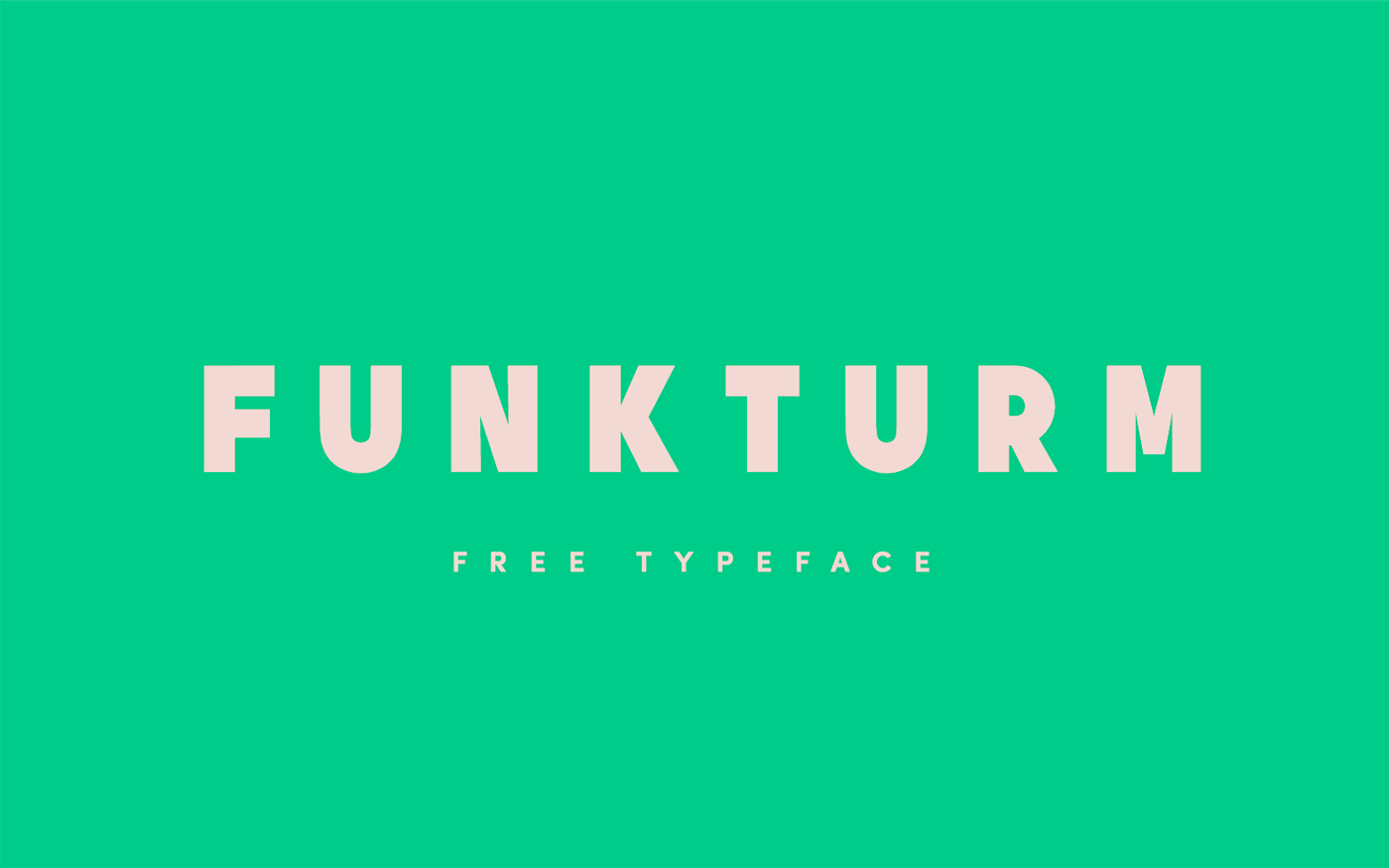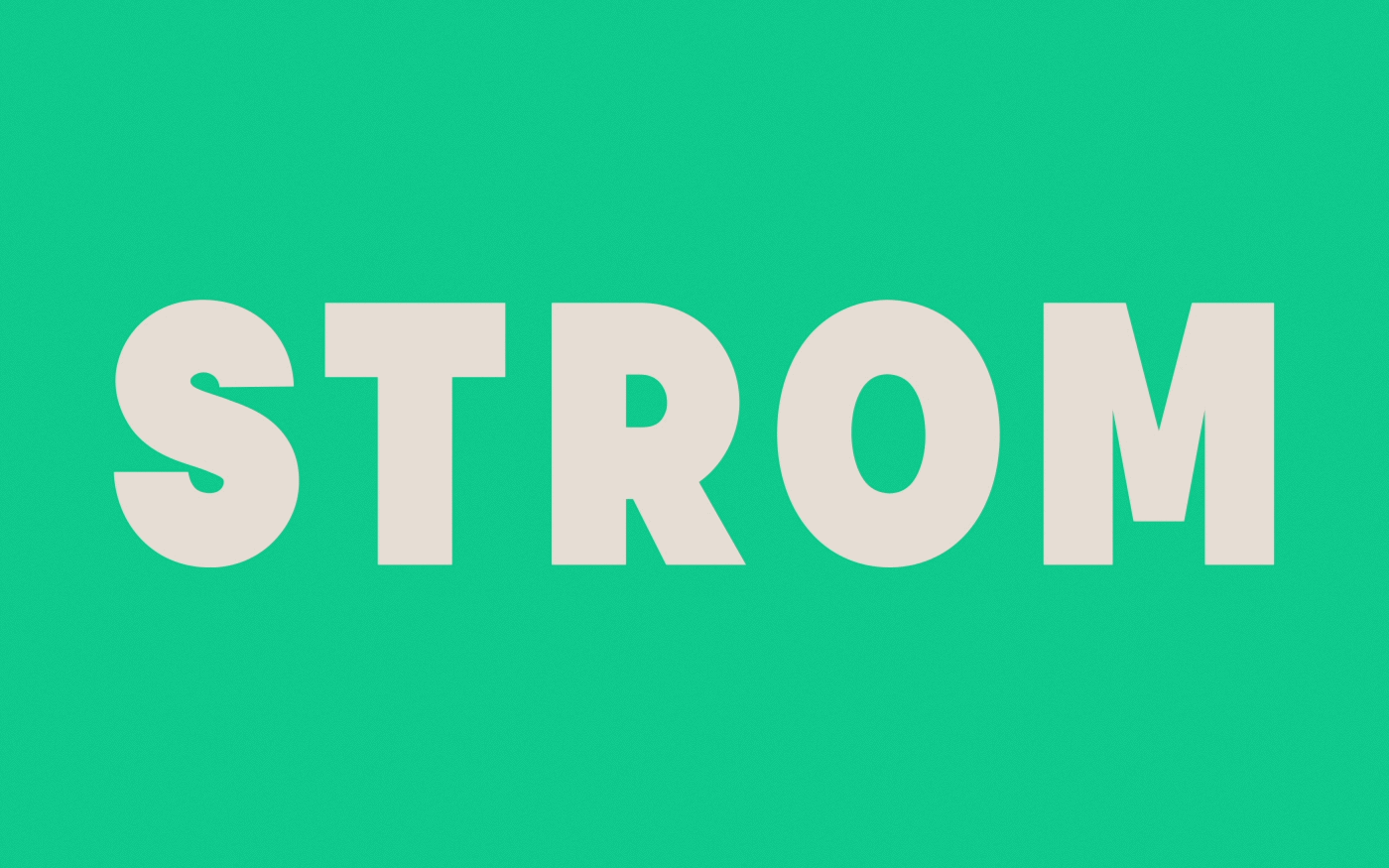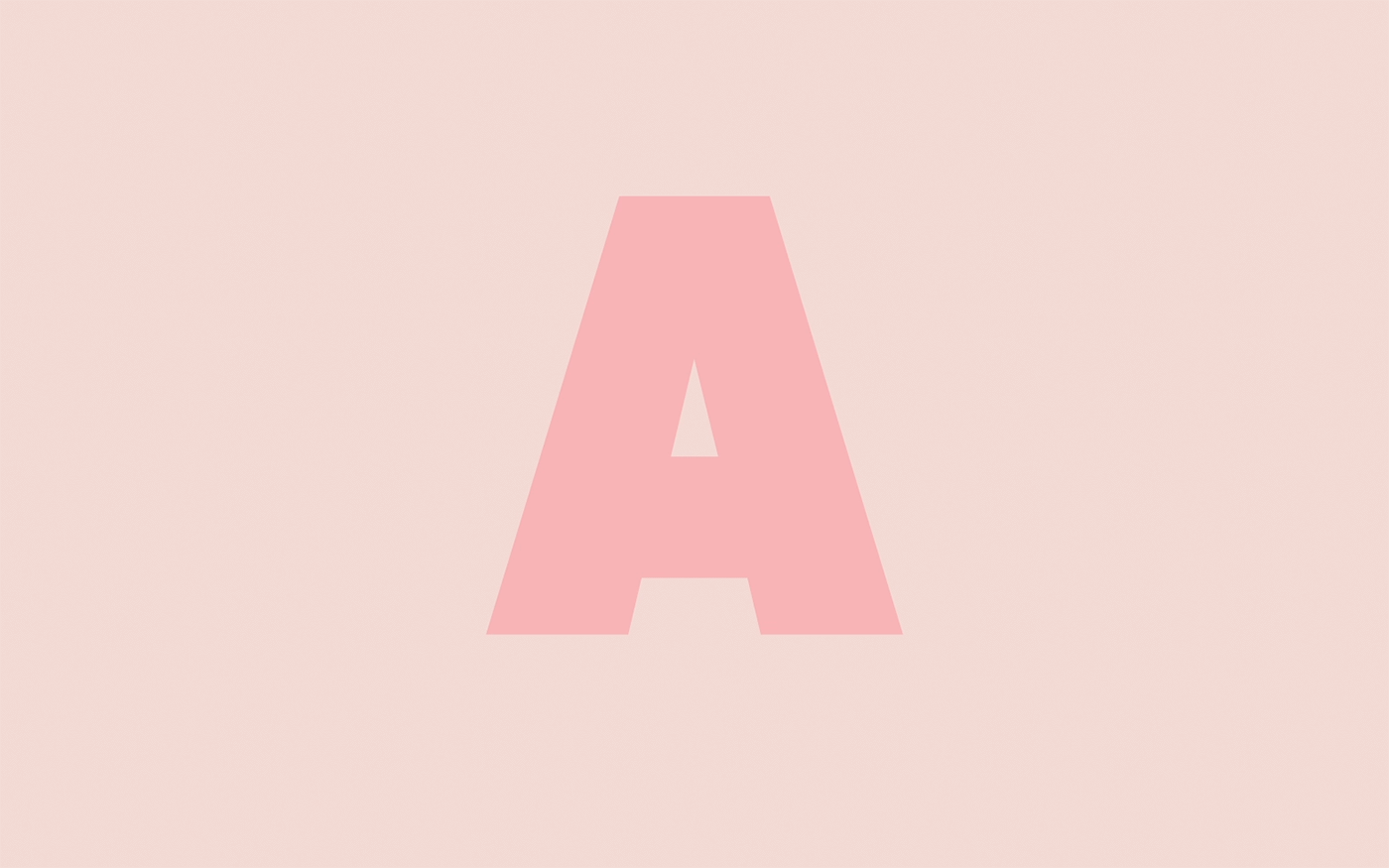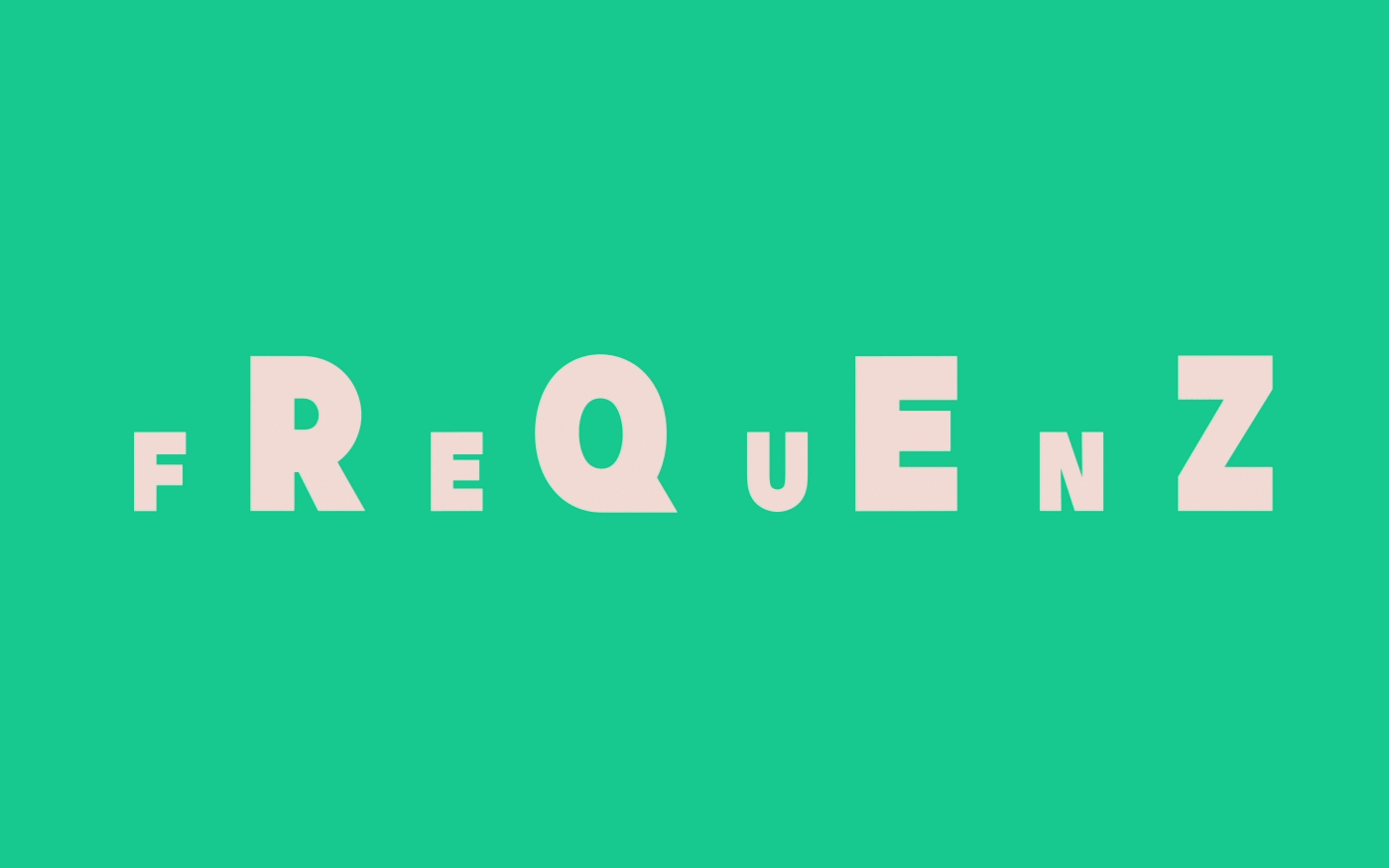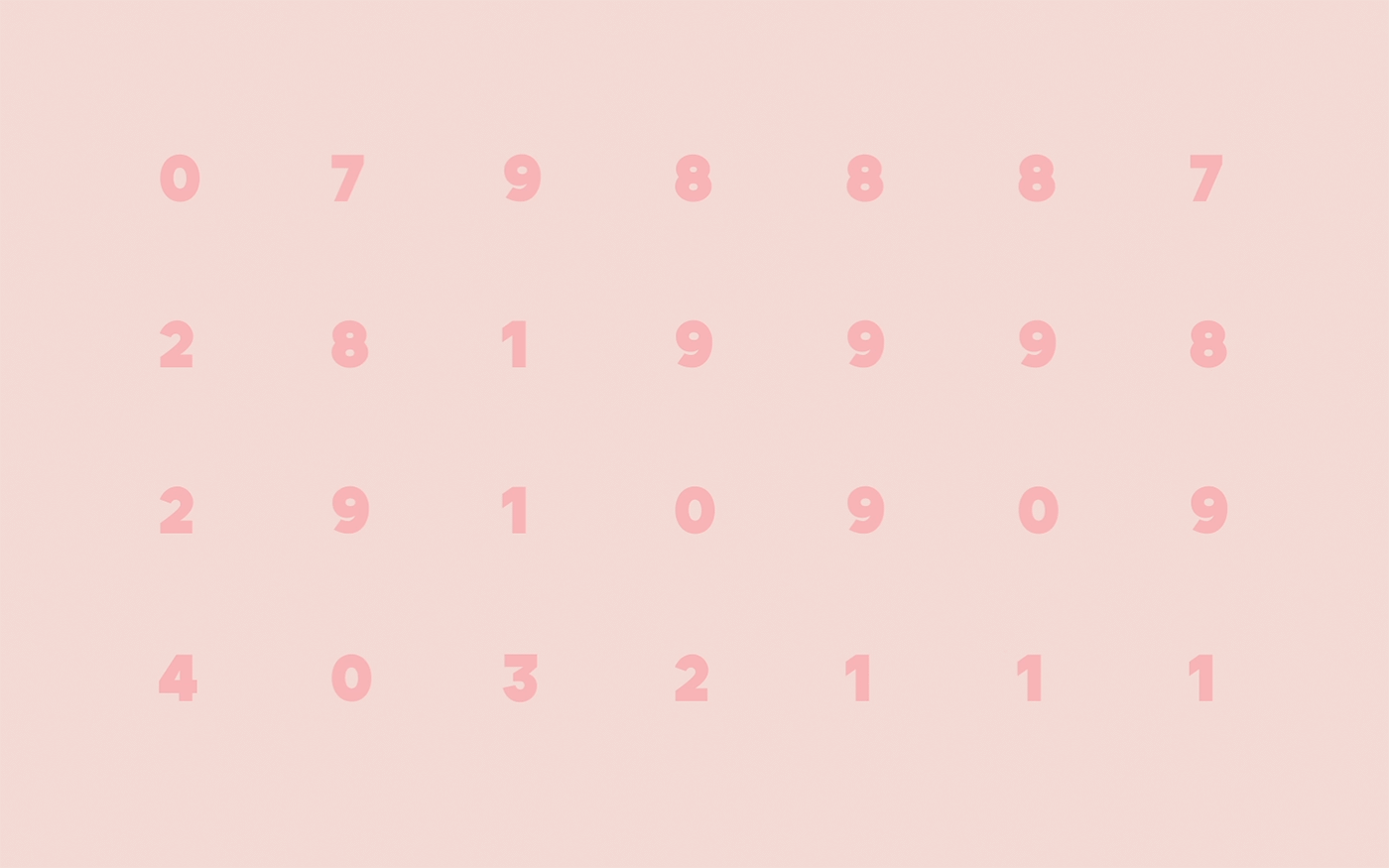
Funkturm is a free uppercase typeface designed by Nicolas Desle from Antwerp, Belgium. This font is so versatile that you can use it on any number of projects both online and in print. It’s just perfect for headlines, logos, posters, websites, T-shirts, signs, report covers and much more!